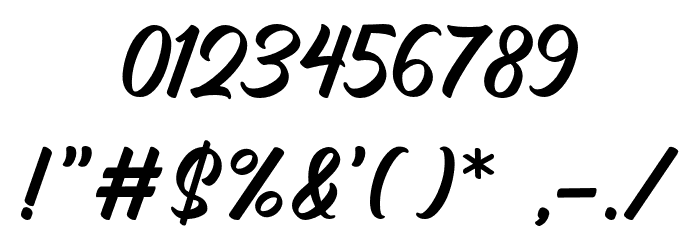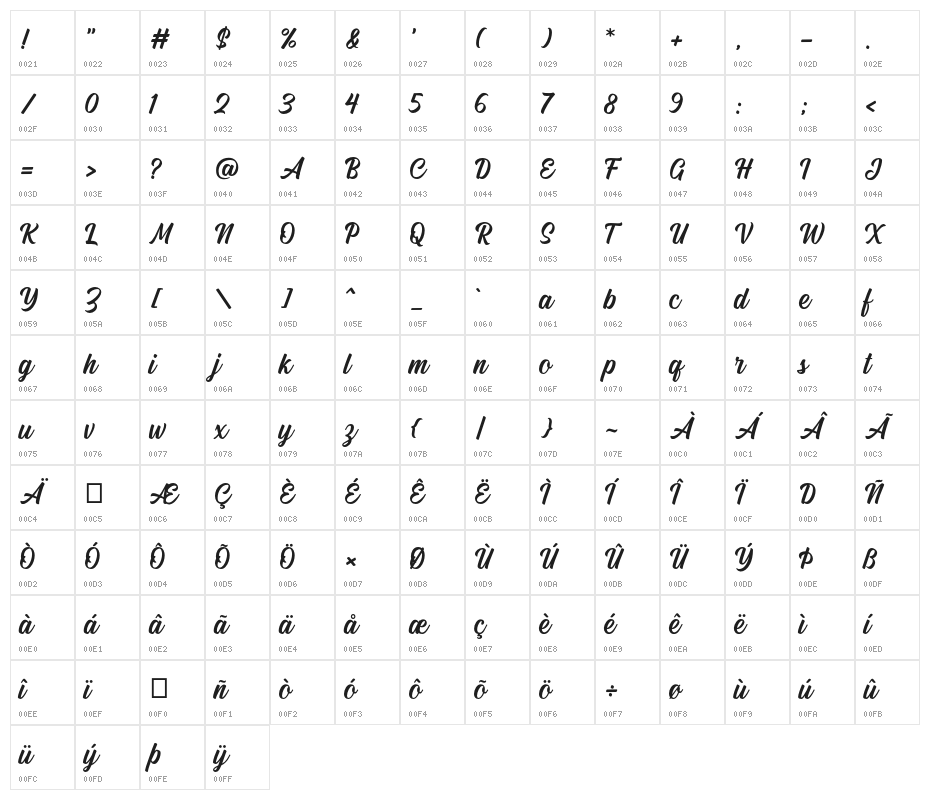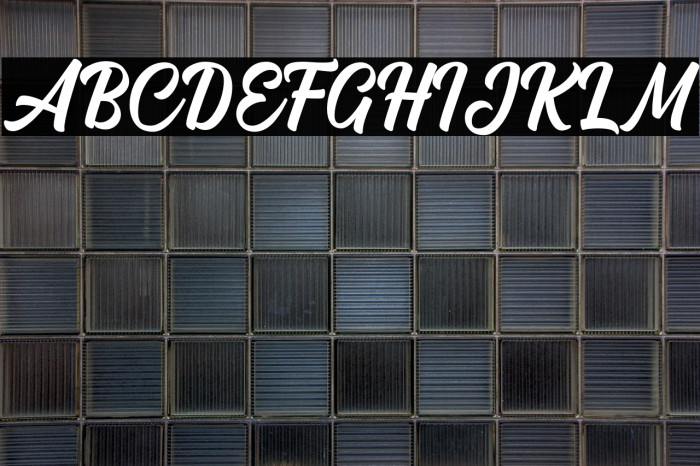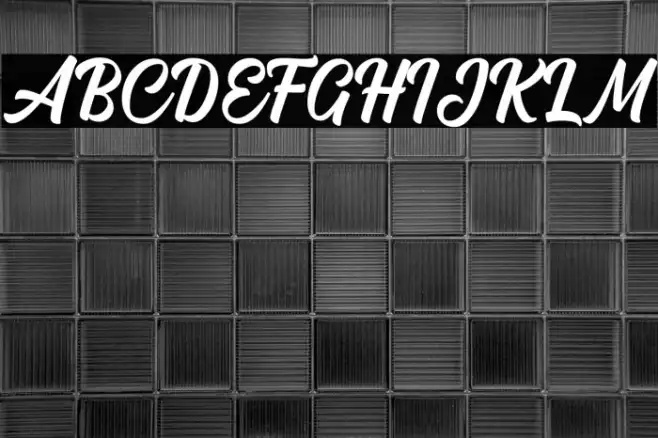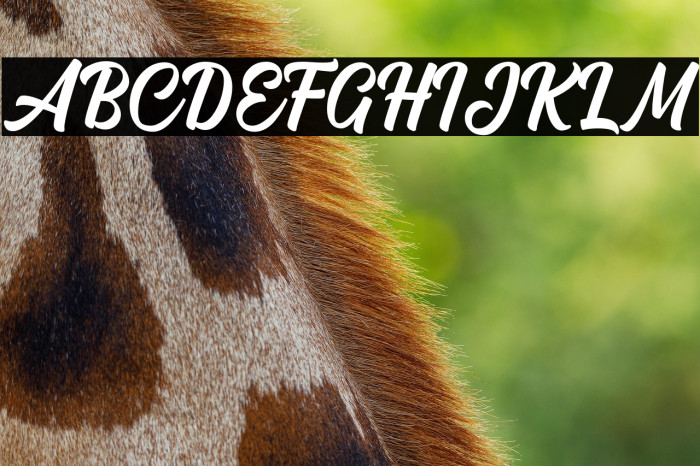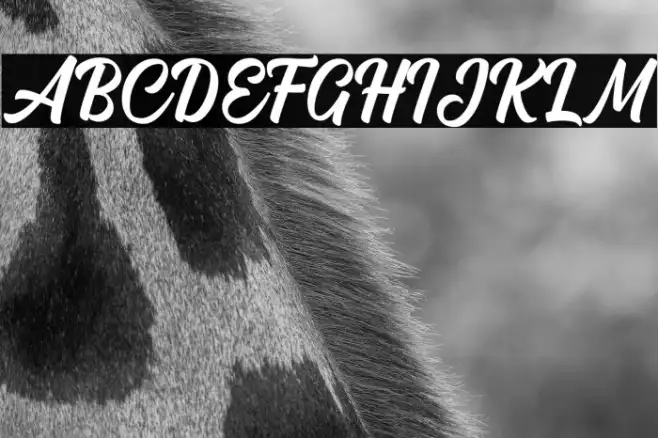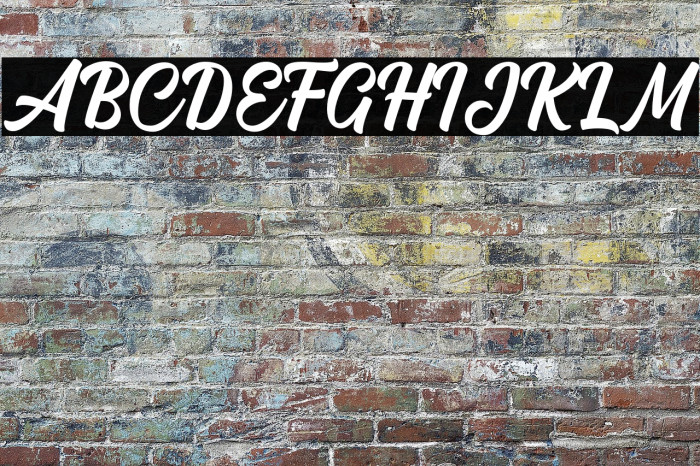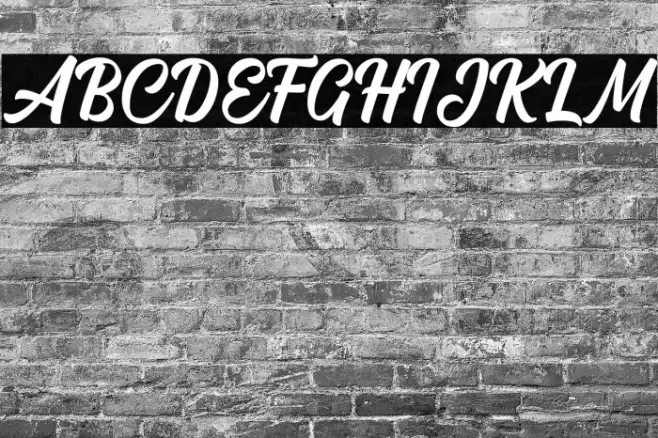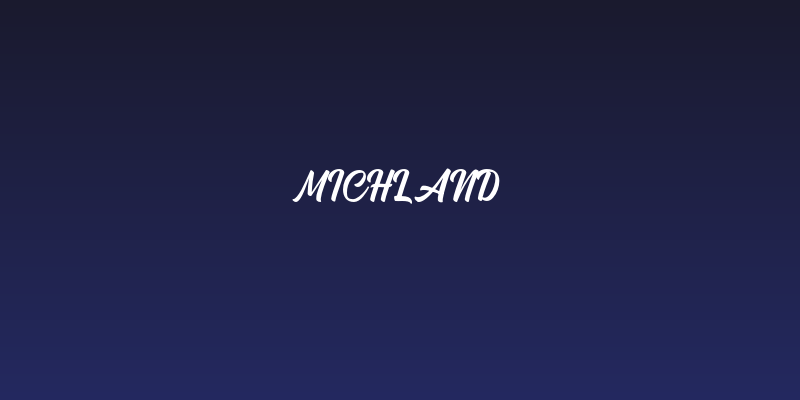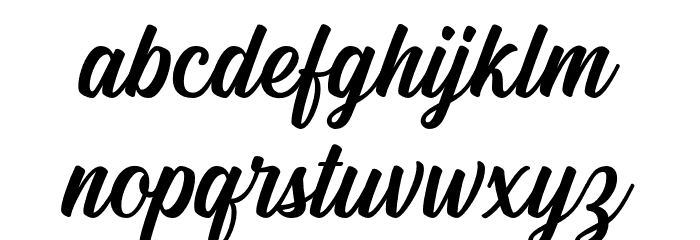
Michland Font
Michland Description
This font features a flowing, cursive style with a modern twist. The letters are connected in a smooth, elegant manner, giving it a handwritten appearance. The uppercase characters are bold and slightly slanted, while the lowercase letters maintain a consistent flow, enhancing readability. Numbers and special characters are designed to match the overall aesthetic, with a playful yet sophisticated look. The font's strokes are moderately thick, providing a balanced contrast that makes it suitable for various design applications. Its stylish and contemporary feel makes it ideal for projects that require a personal touch.